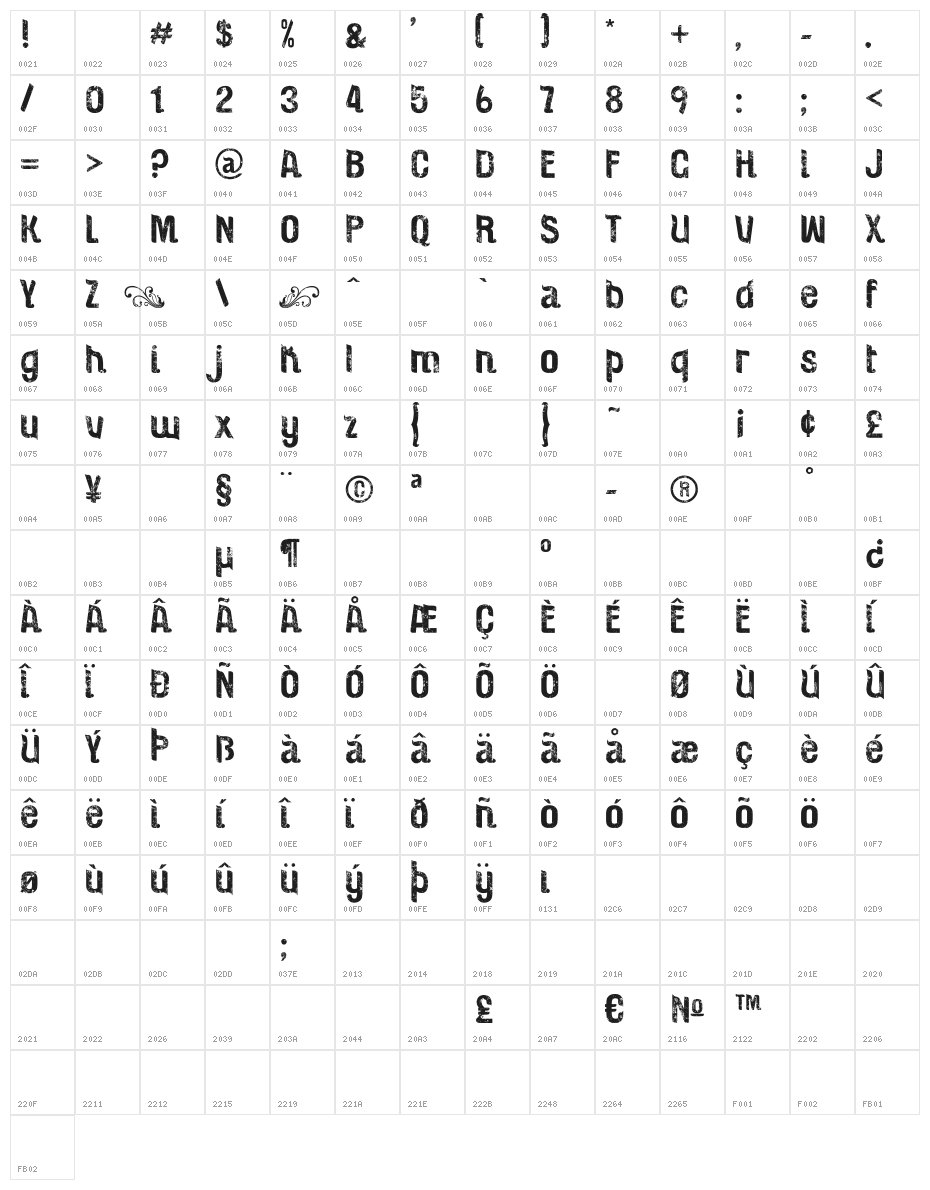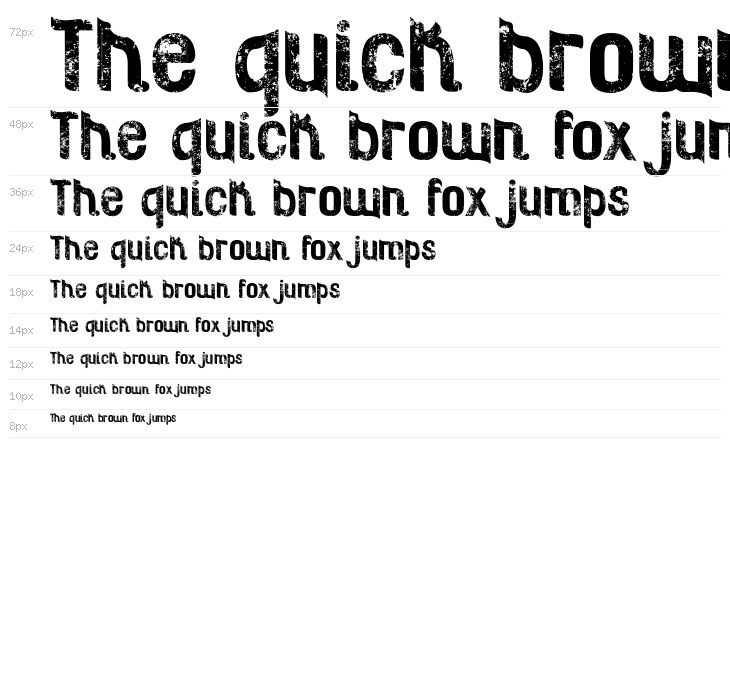
Rosebud Antique Font
Rosebud Antique Description
This font features a distressed, grunge style with a bold and impactful appearance. The characters are designed with a rough texture, giving them a vintage and worn-out look. The uppercase and lowercase letters maintain a consistent style, with slightly rounded edges and a bold weight. The numerals and special characters follow the same distressed aesthetic, making the font suitable for projects that require a rugged and edgy feel. The overall design is eye-catching and adds a unique character to any text.
| Overall Style | Vintage, Grunge |
| Proposed Projects | Ideal for posters, album covers, branding for edgy or vintage-themed products, and any design needing a bold, distressed look. |